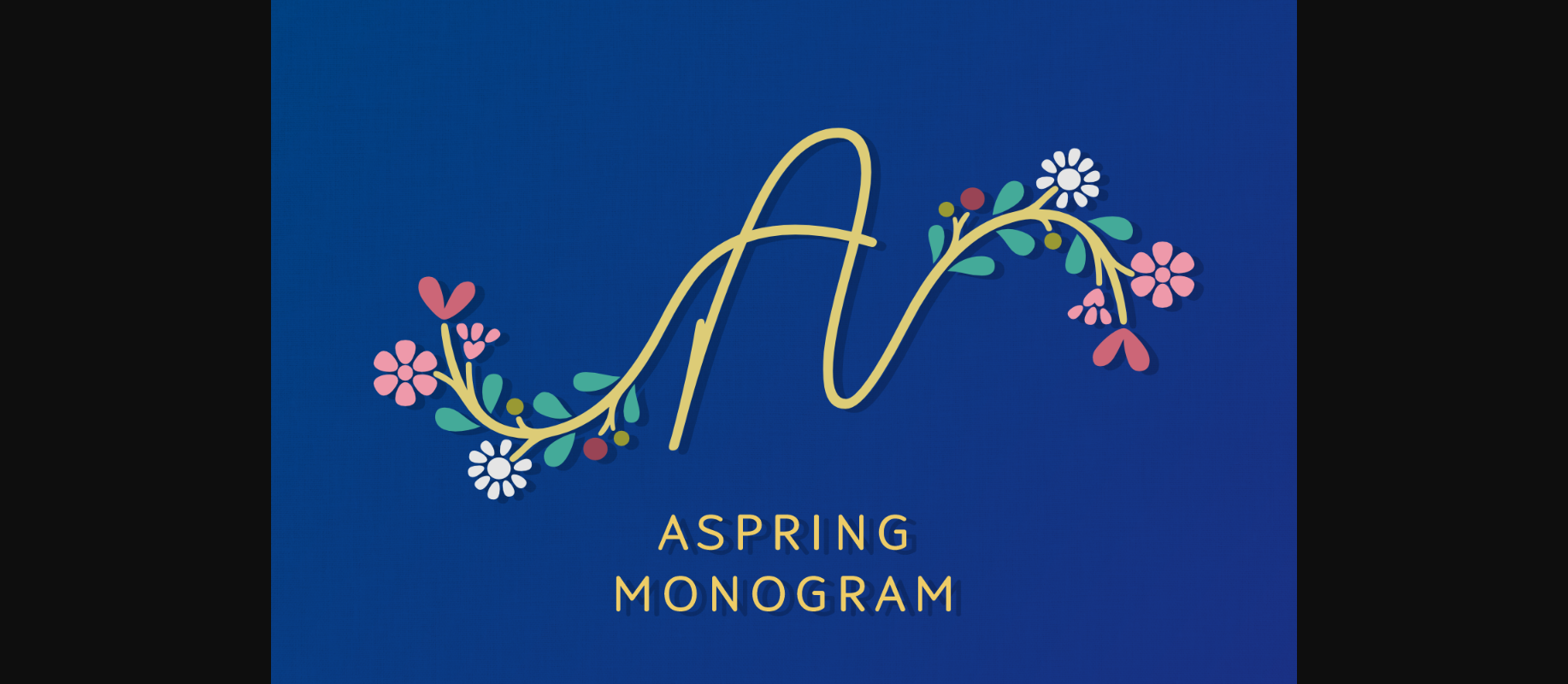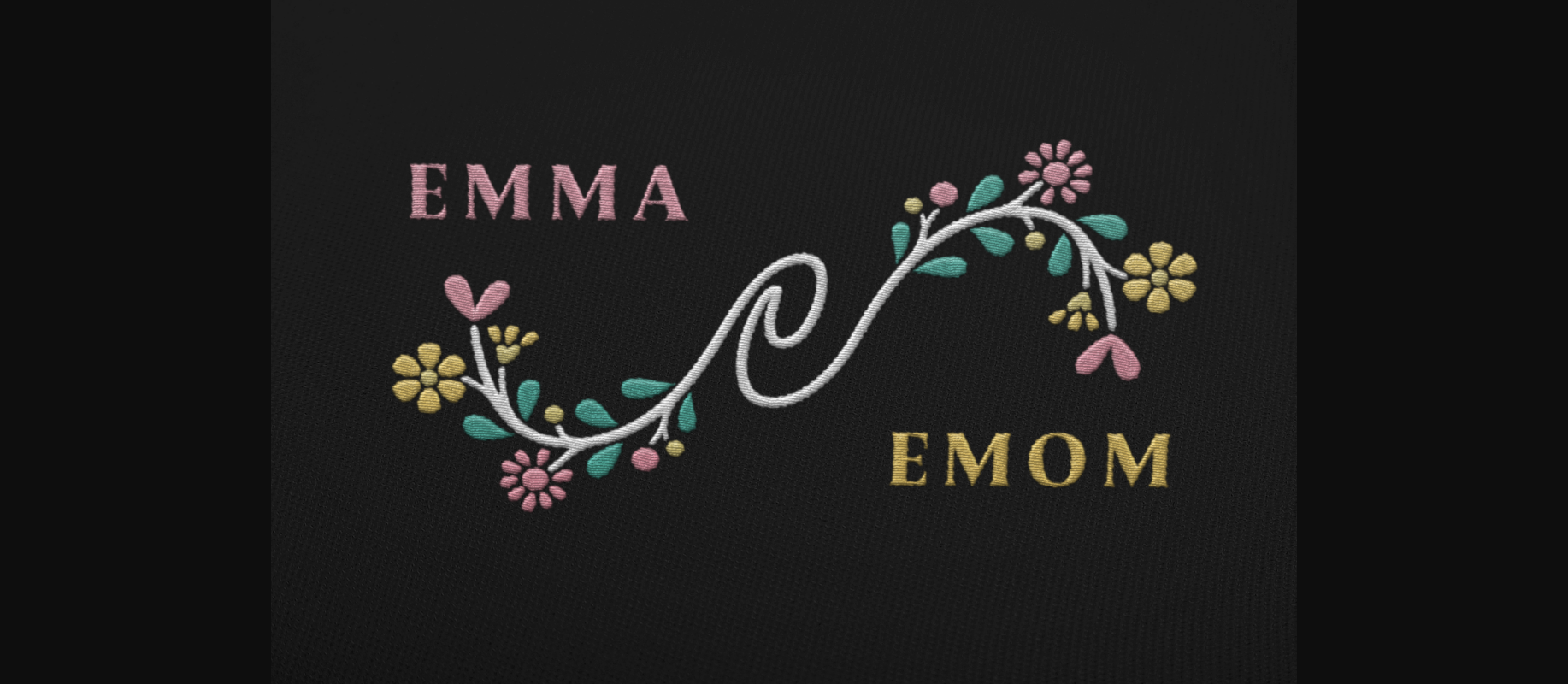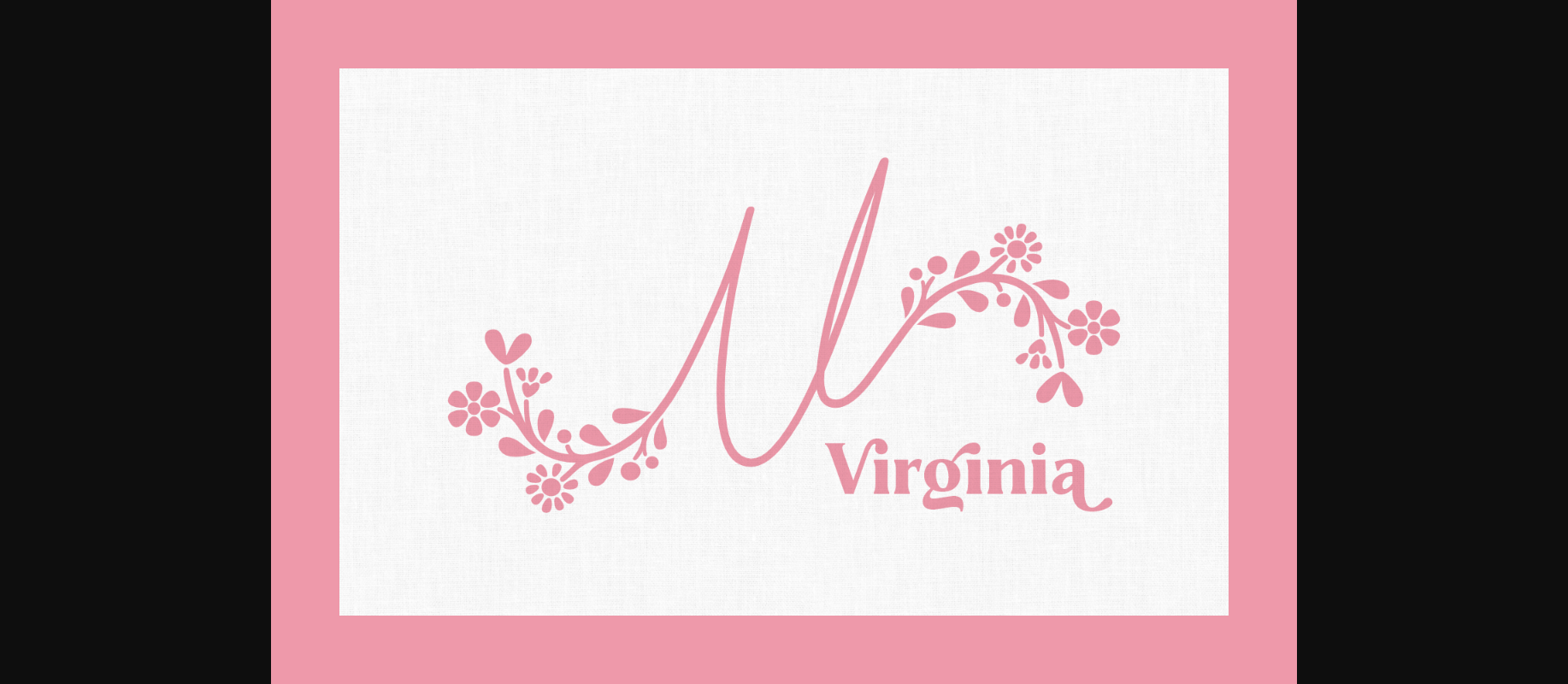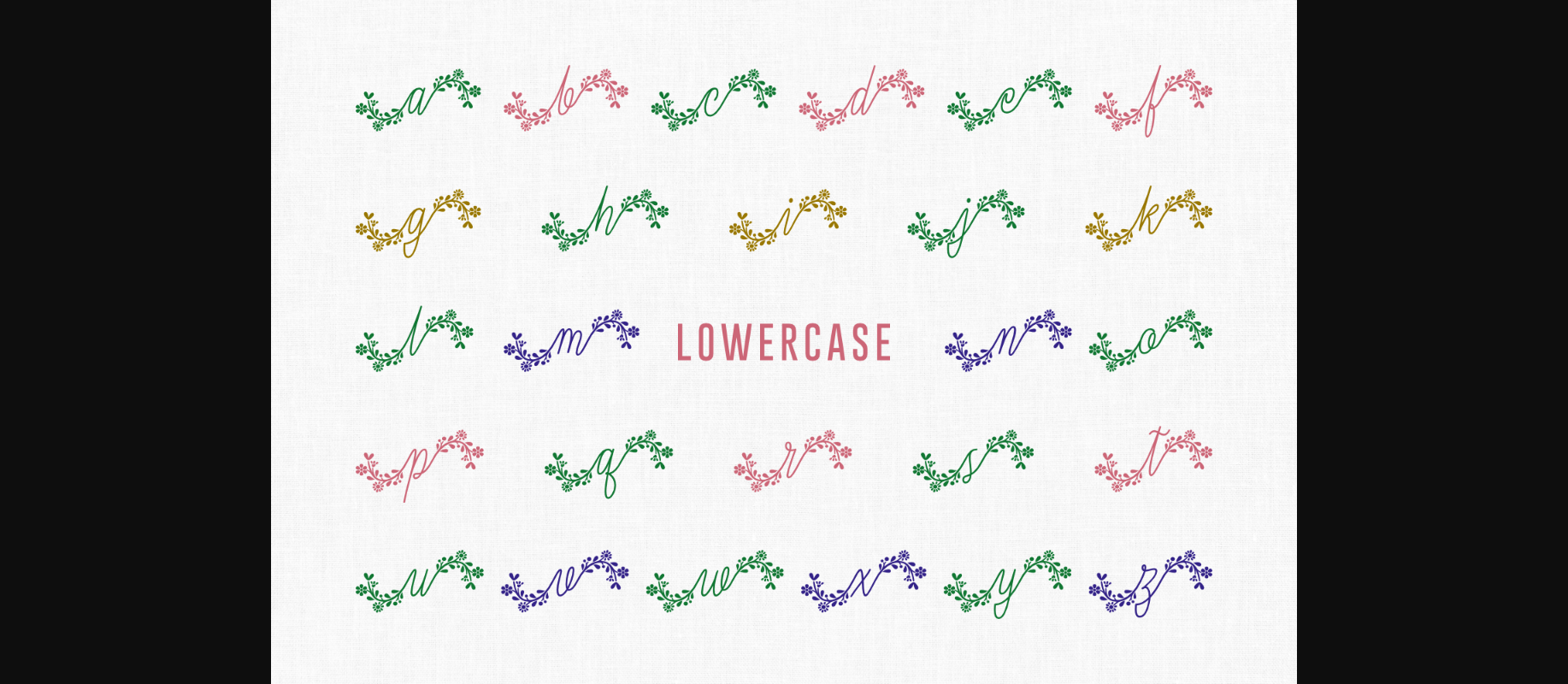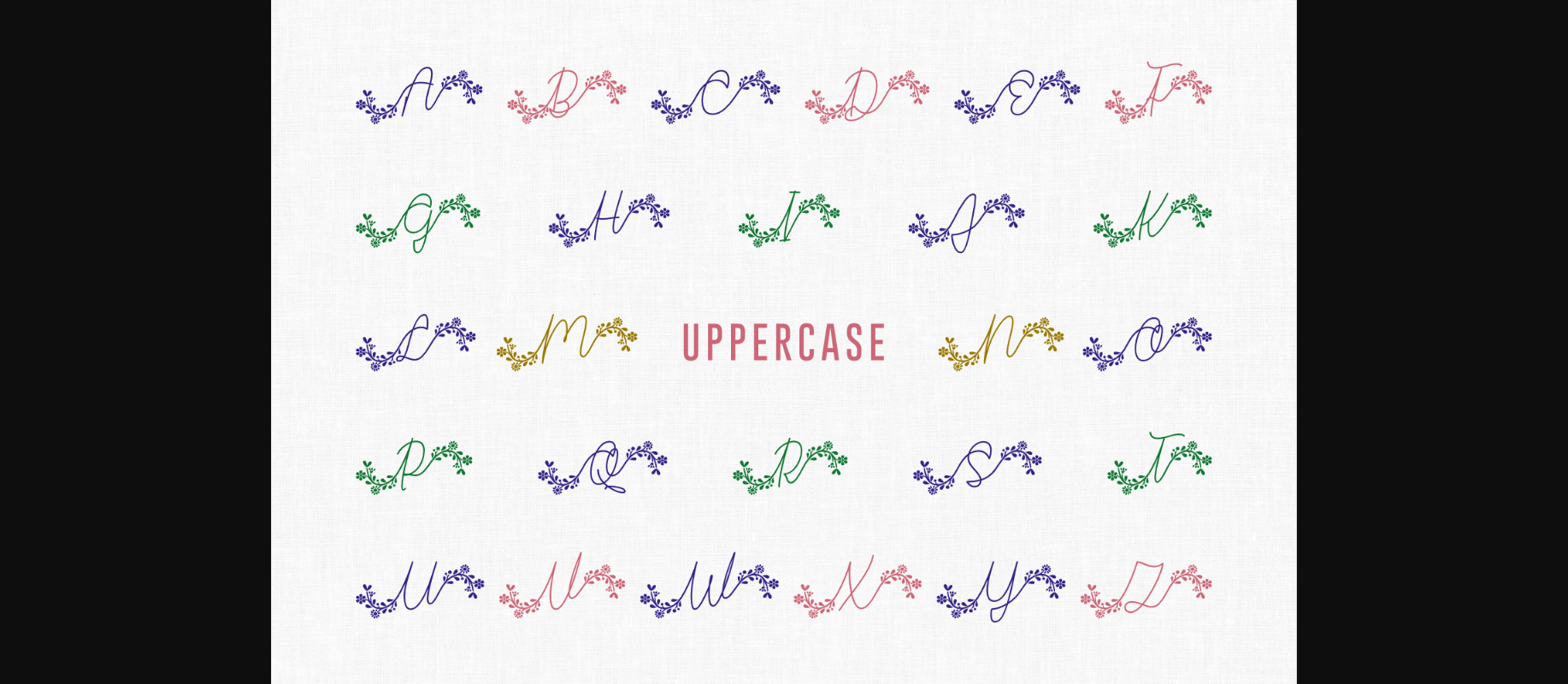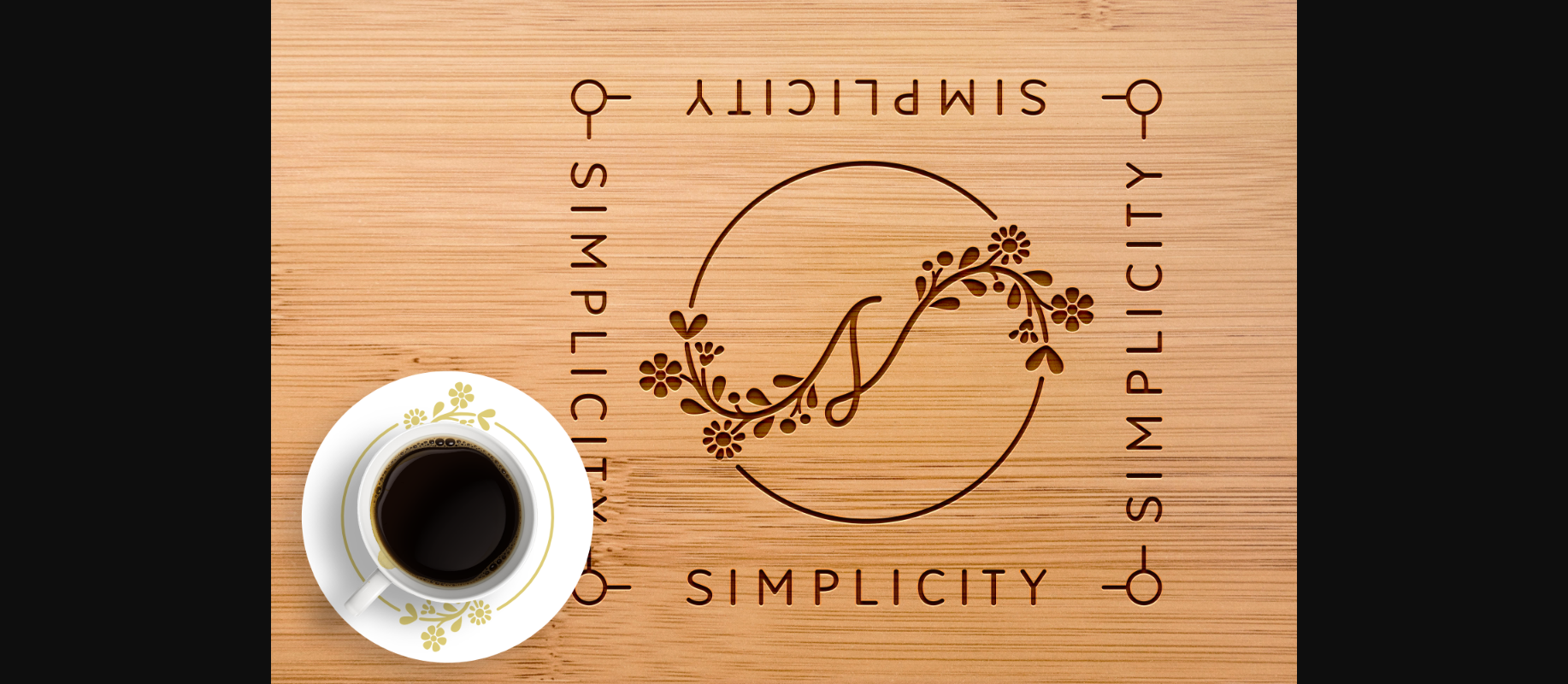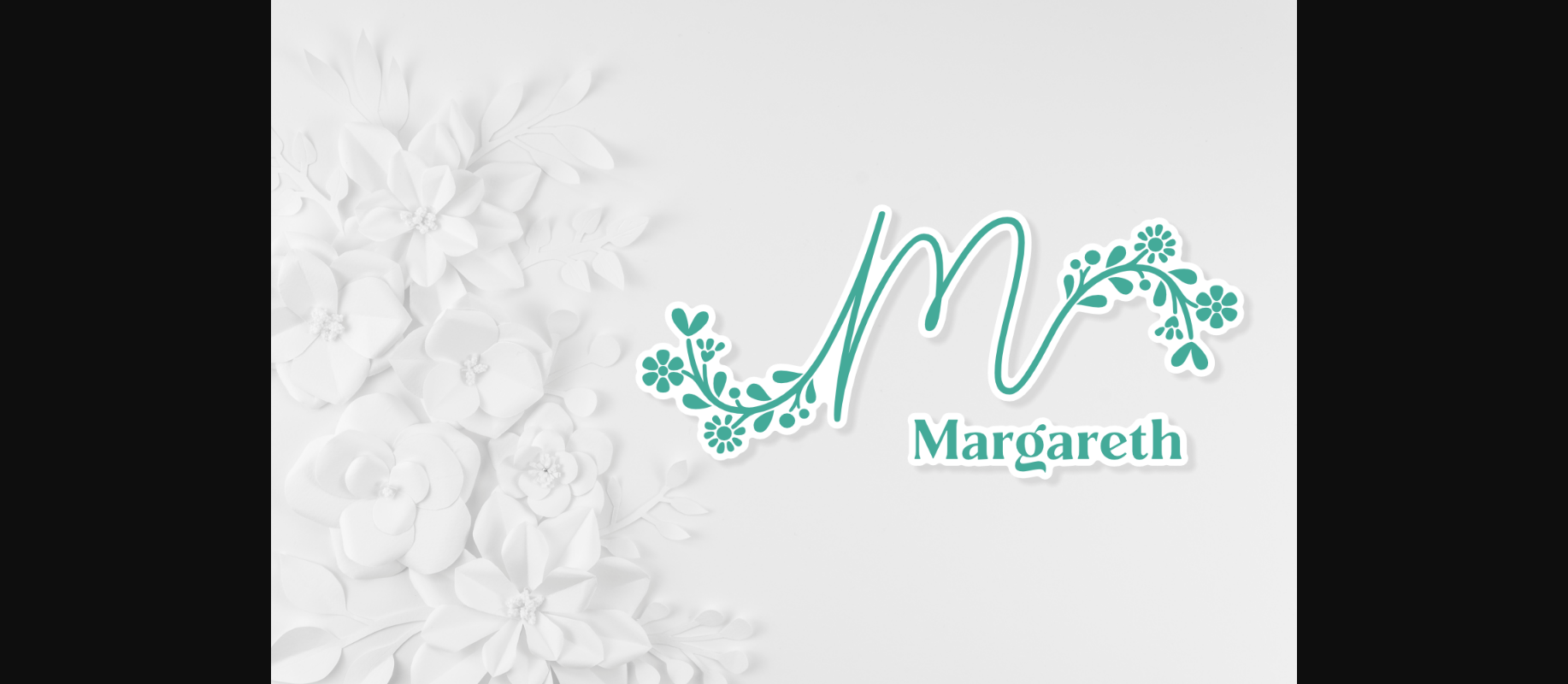
Aspring Monogram Font
About Aspring Monogram Font
Are you looking for elegant monogram fonts that you can use for embroidery projects or other creative purposes? Look no further because Aspring Monogram is a suitable font for your needs. It features flourish detailed lowercase and uppercase characters. This spring-inspired typeface is ideal for wedding cards, embroidery designs, kids’ clothing, personal branding, flower shops designs, and logos.